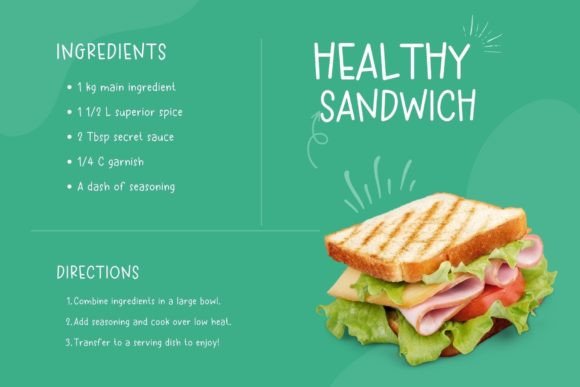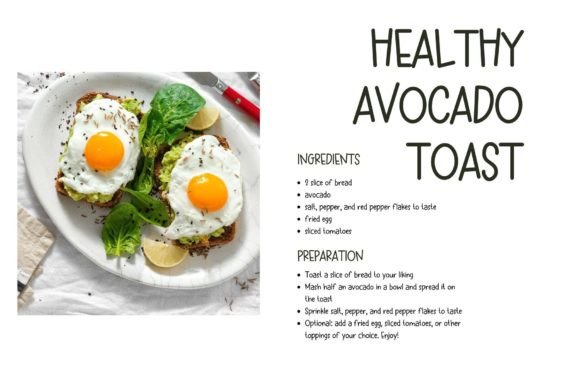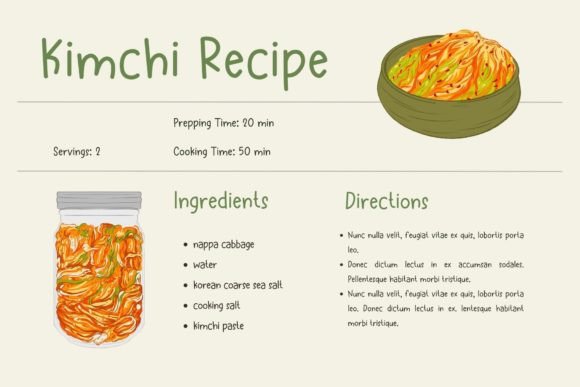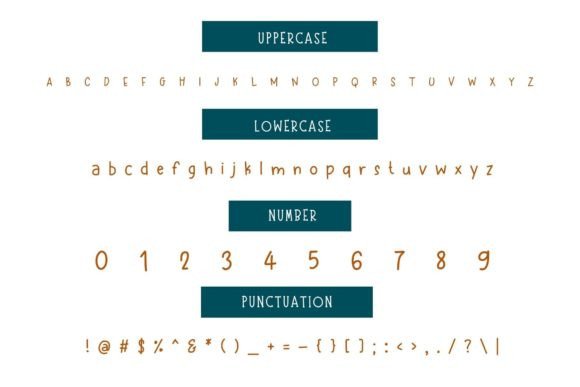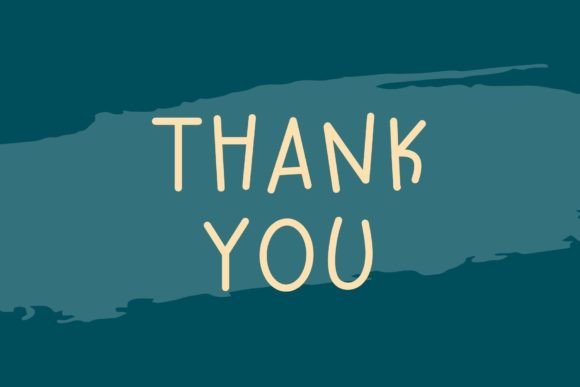
Cookies and Cream Font: The Perfect Addition to Your Design Projects
Are you looking for a font that embodies playfulness and authenticity? Look no further than the Cookies and Cream font! This adorable handwritten font is perfect for a wide range of design projects, from blog posts and logos to invitations and decorations. In this article, we’ll explore the features and benefits of the Cookies and Cream font, and show you how to make the most of it in your designs.
What is Cookies and Cream Font?
Cookies and Cream font is a cute and playful handwritten font that is sure to capture the hearts of designers and crafters alike. Its authentic and whimsical feel makes it perfect for a wide range of projects, from personal blogs and social media graphics to professional branding and advertising materials.
Features of Cookies and Cream Font
- Playful and Authentic: The Cookies and Cream font has a unique and authentic feel that is sure to add a touch of playfulness to any design project.
- Handwritten: This font is a beautiful example of handwritten typography, with each letter carefully crafted to create a sense of warmth and personality.
- Versatile: The Cookies and Cream font is incredibly versatile, and can be used for a wide range of design projects, from digital graphics to print materials.
- Easy to Read: Despite its playful feel, the Cookies and Cream font is easy to read, making it perfect for use in body text as well as headings and titles.
Uses for Cookies and Cream Font
The Cookies and Cream font is perfect for a wide range of design projects, including:
- Blog Posts: Add a touch of personality to your blog posts with the Cookies and Cream font. It’s perfect for headings, titles, and even body text.
- Logos and Branding: Create a unique and memorable brand identity with the Cookies and Cream font. It’s perfect for logos, business cards, and other branding materials.
- Ads and Marketing Materials: The Cookies and Cream font is perfect for use in ads and marketing materials, such as flyers, brochures, and social media graphics.
- Invitations and Greeting Cards: Add a touch of whimsy to your invitations and greeting cards with the Cookies and Cream font. It’s perfect for weddings, birthdays, and other special occasions.
- Planners and Photo Albums: The Cookies and Cream font is perfect for use in planners, photo albums, and other personal projects.
- Decorations: Use the Cookies and Cream font to create beautiful and unique decorations, such as wall art, signs, and other home decor items.
Tips for Using Cookies and Cream Font
Here are a few tips for getting the most out of the Cookies and Cream font:
- Experiment with Colors: The Cookies and Cream font looks great in a wide range of colors, so don’t be afraid to experiment and find the perfect color scheme for your design.
- Mix and Match: Try mixing and matching the Cookies and Cream font with other fonts and design elements to create a unique and eye-catching design.
- Keep it Simple: Don’t overcomplicate your design. The Cookies and Cream font is perfect for simple, elegant designs that let the font speak for itself.
The Cookies and Cream font is a versatile and adorable handwritten font that is perfect for a wide range of design projects. Its playful and authentic feel makes it a great choice for designers and crafters who want to add a touch of personality to their designs. With its ease of use and flexibility, the Cookies and Cream font is sure to become a favorite in your design toolkit. So why wait? Add the Cookies and Cream font to your designs today and see the difference it can make!